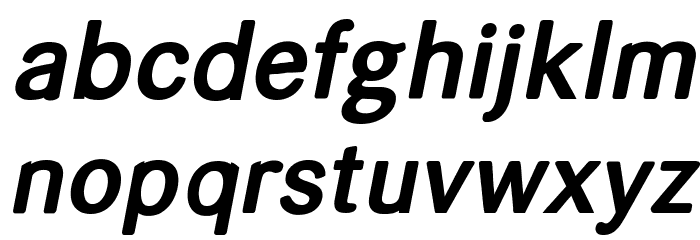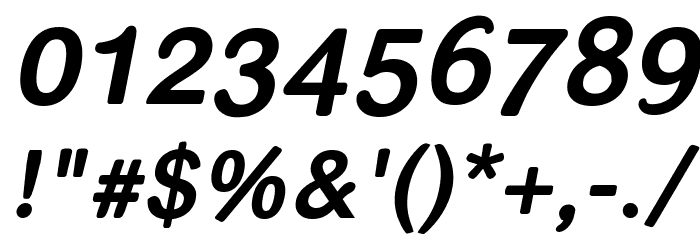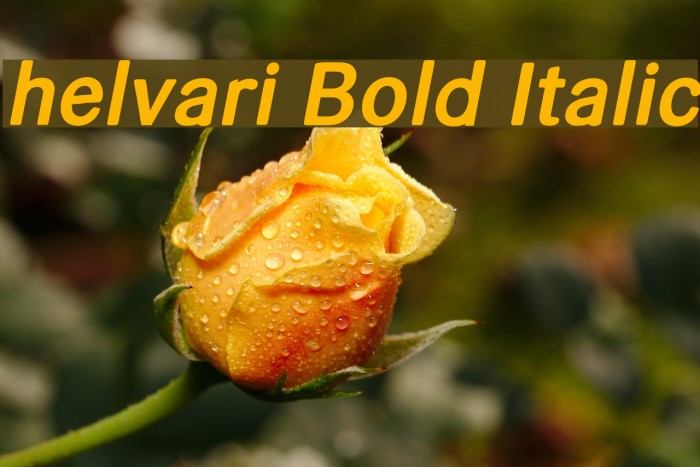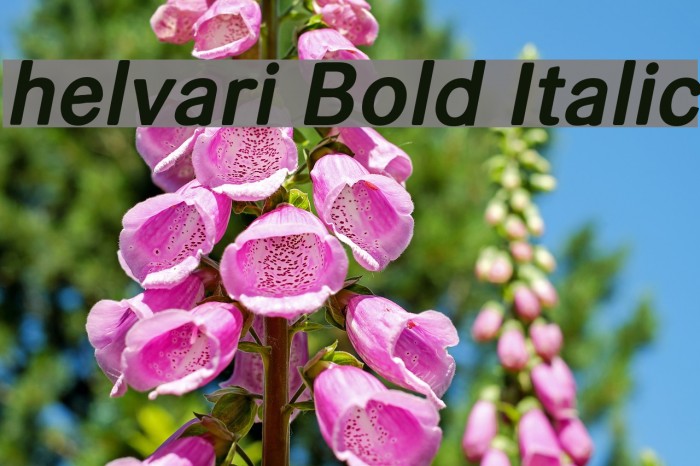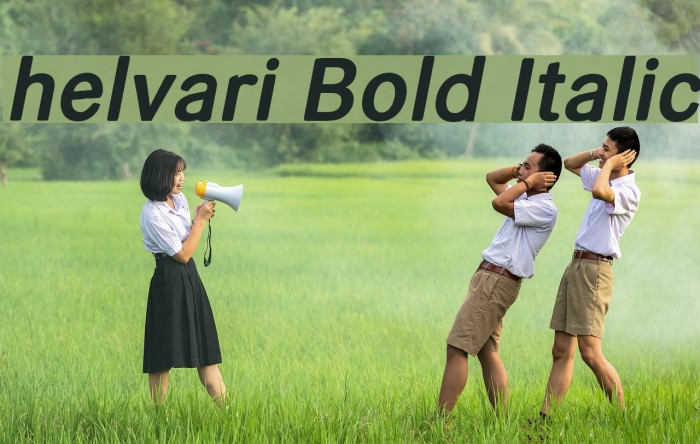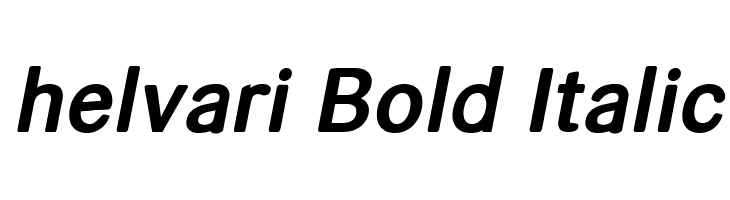
helvari Bold Italic Font
This font features a bold and italicized style, combining strength with a dynamic slant. The characters are well-defined with a consistent stroke width, offering a clean and modern appearance. The uppercase letters are prominent and commanding, while the lowercase letters maintain readability with a slight slant that adds a sense of motion. Numbers are clear and distinct, ensuring legibility in various contexts. Special characters are well-integrated, maintaining the overall aesthetic of the font. The design is versatile, suitable for both digital and print media.
- Proposed Projects: Ideal for branding, advertising, headlines, and digital media where a strong, modern presence is desired.
- Use Case: Headlines, Logos, Branding